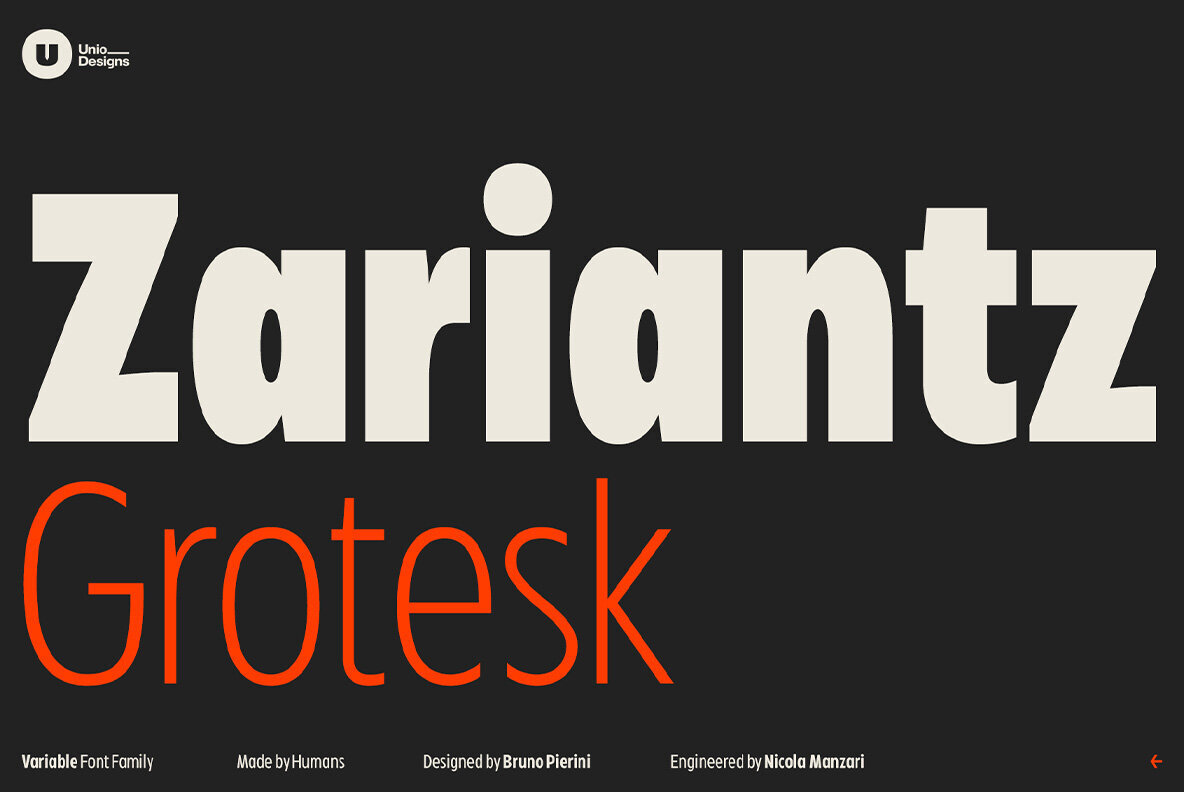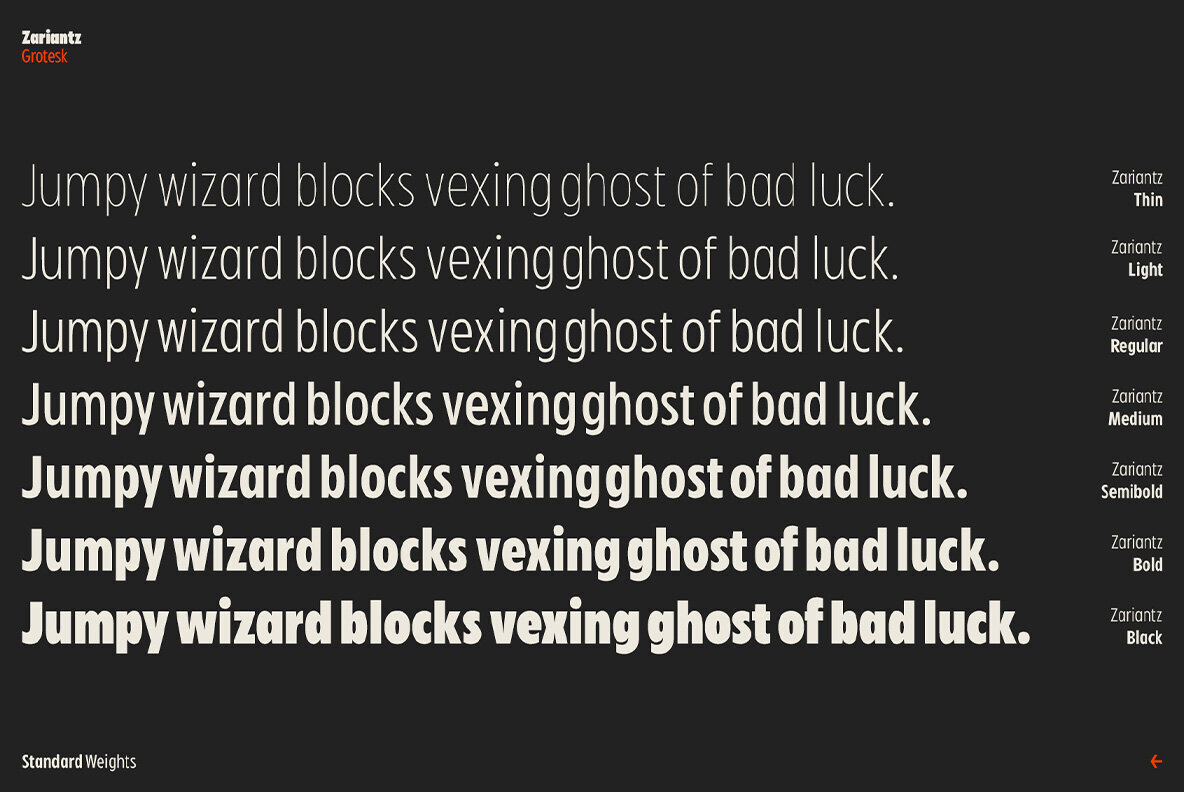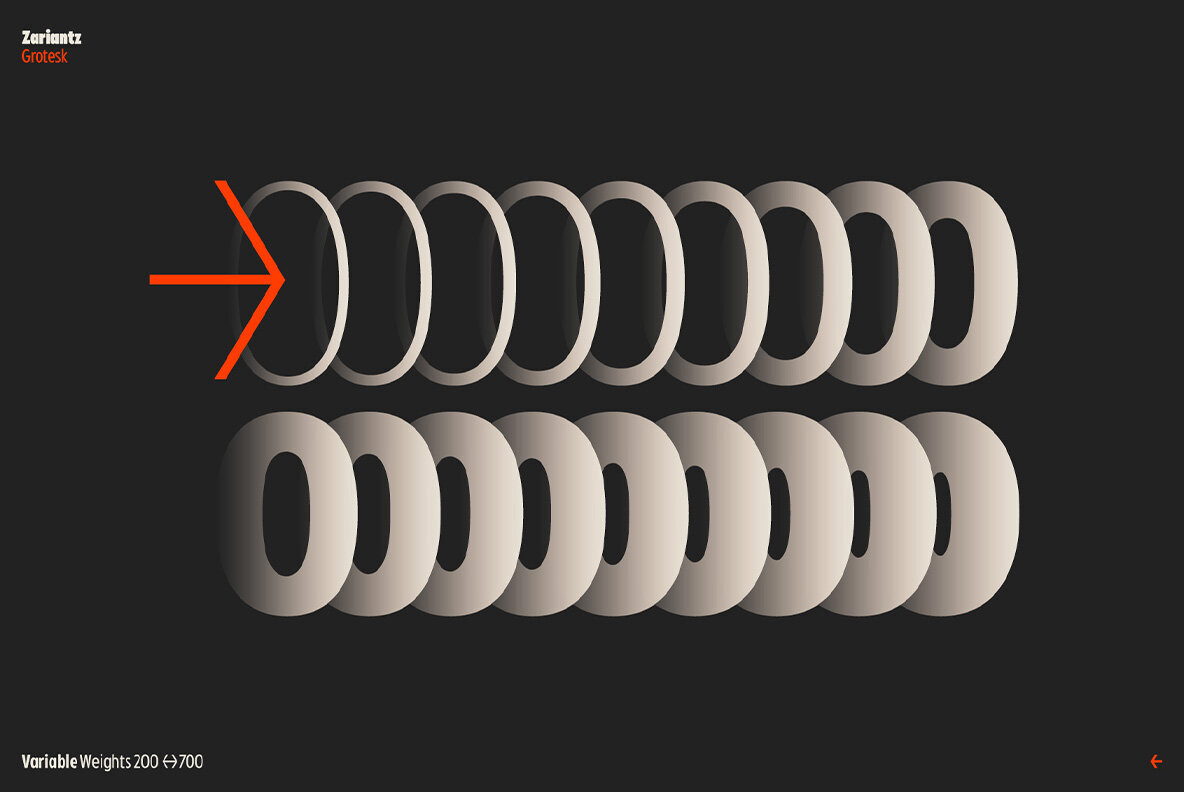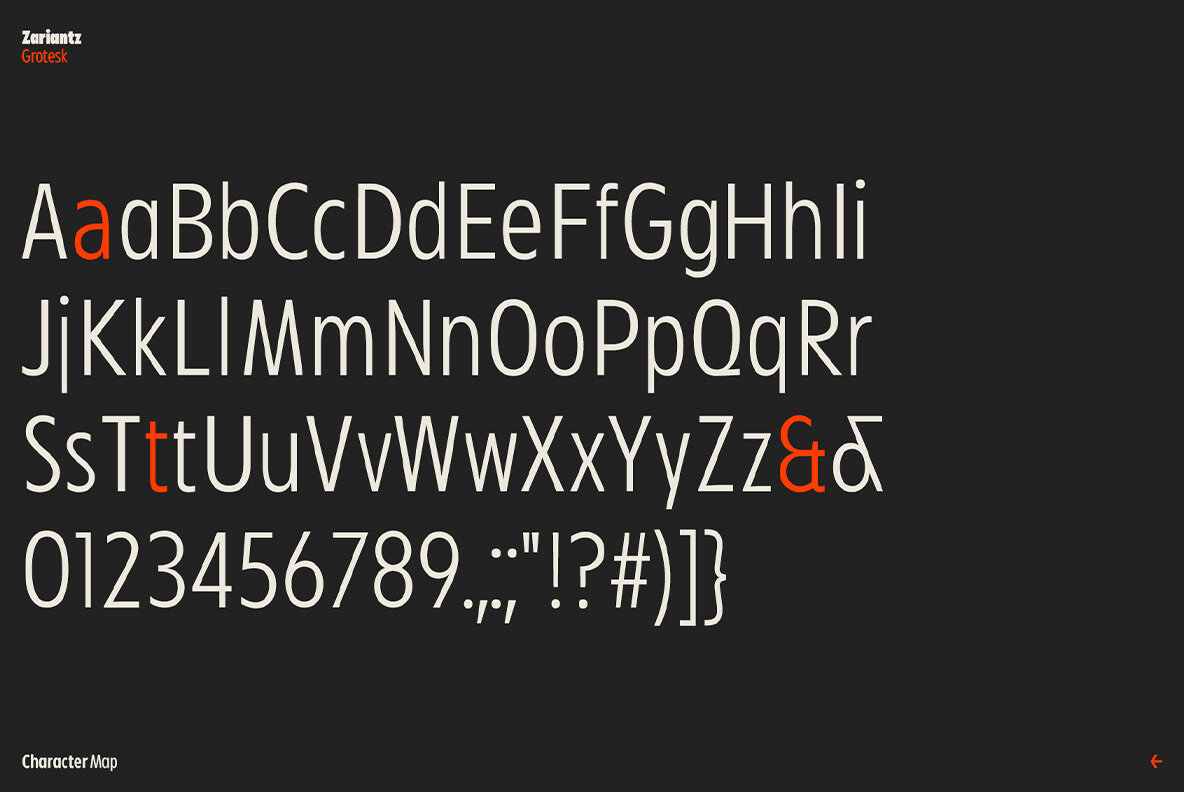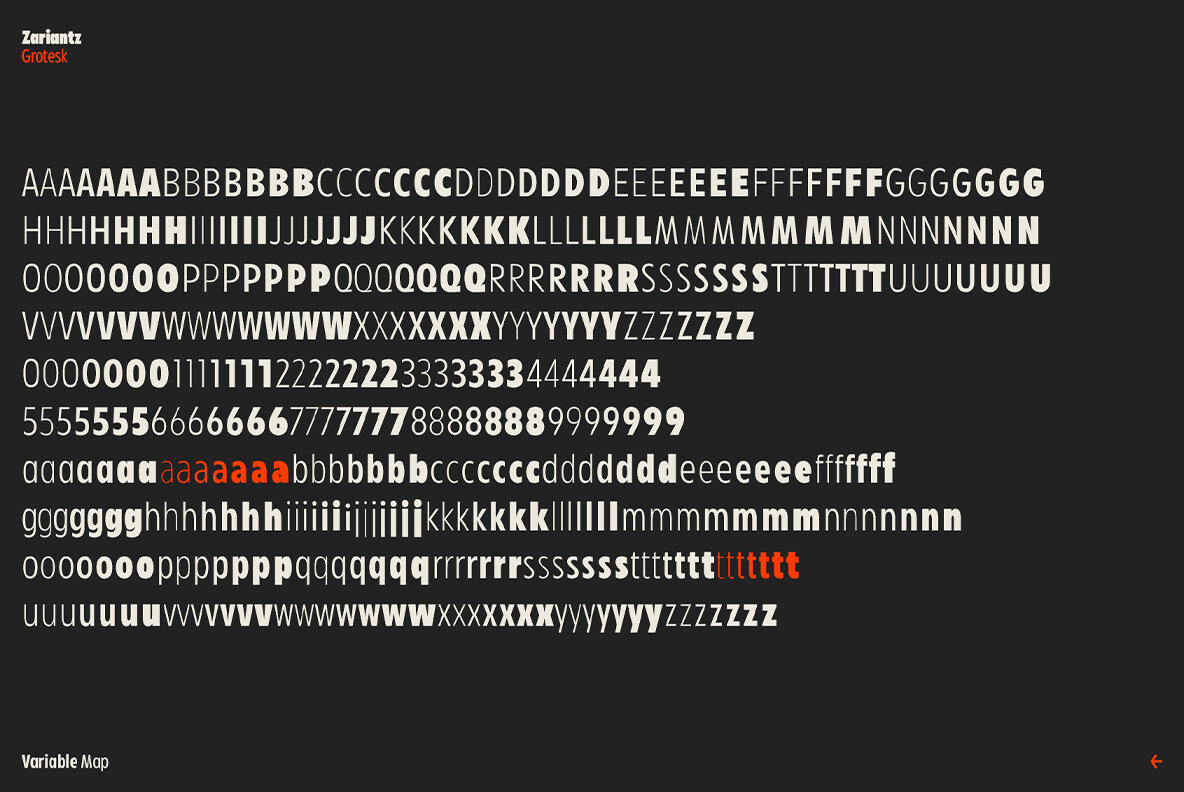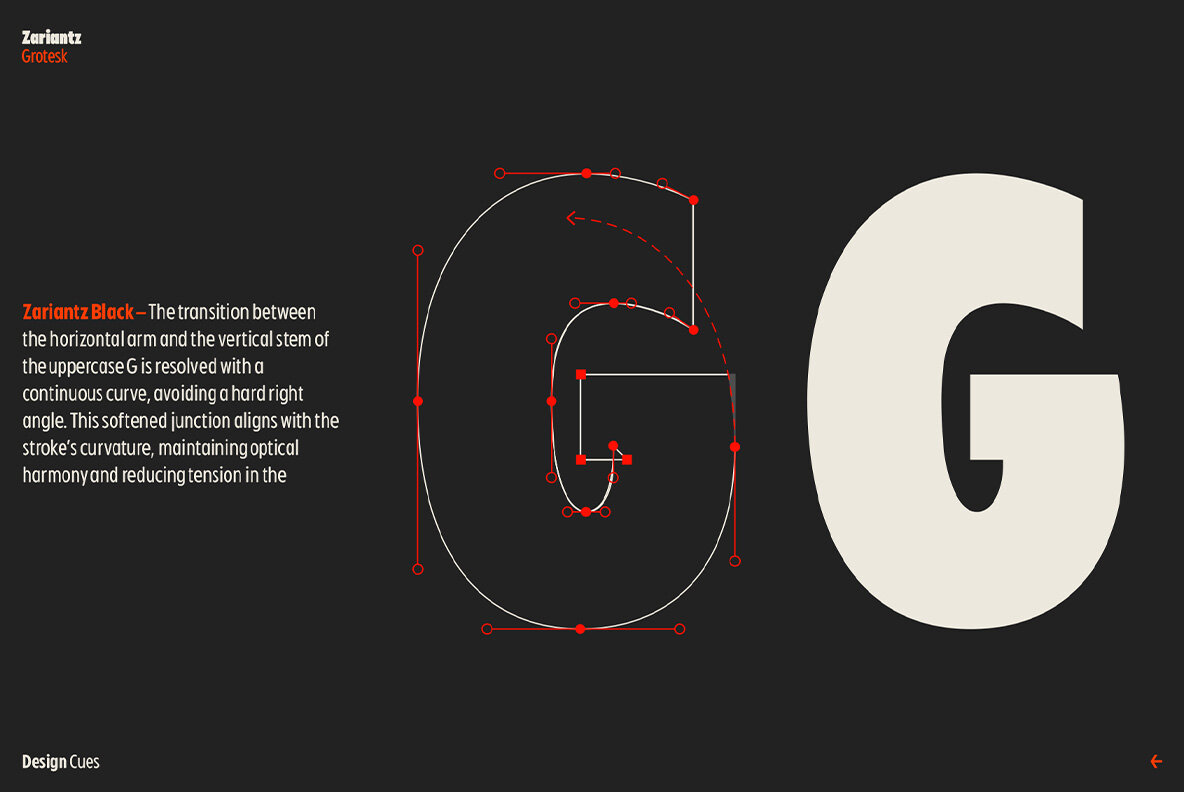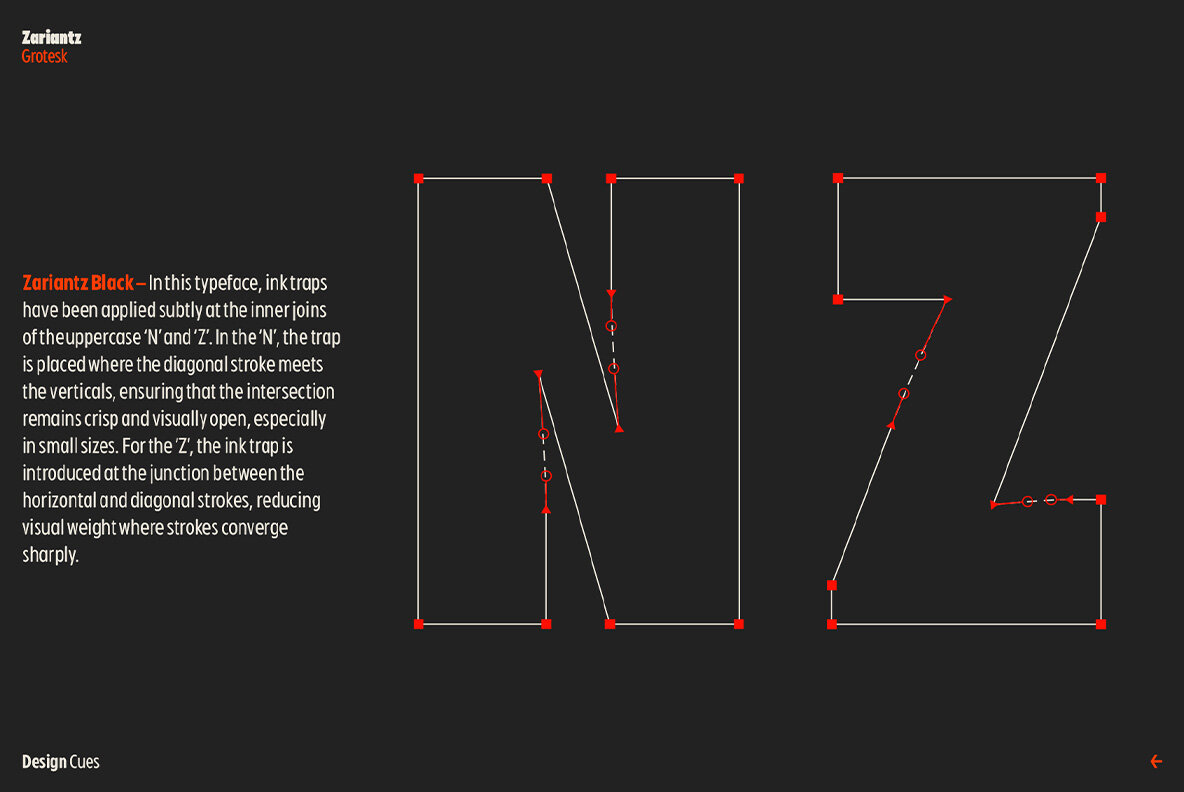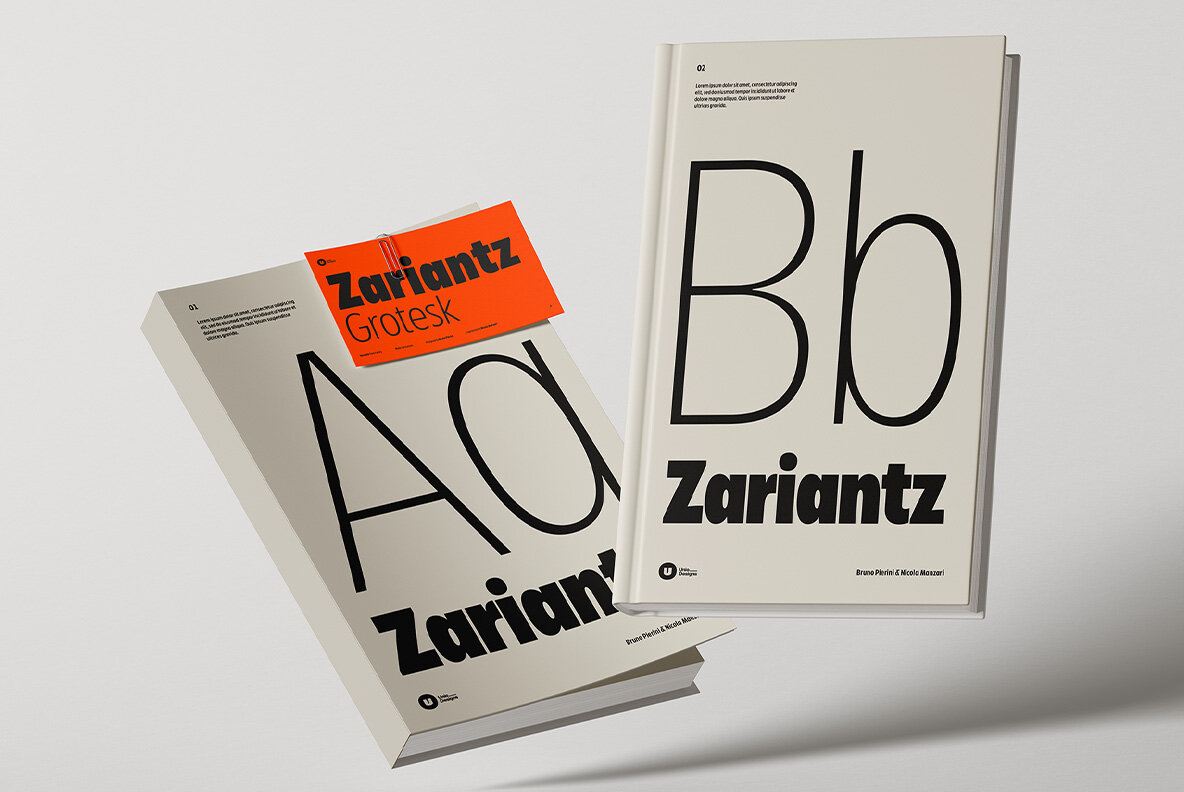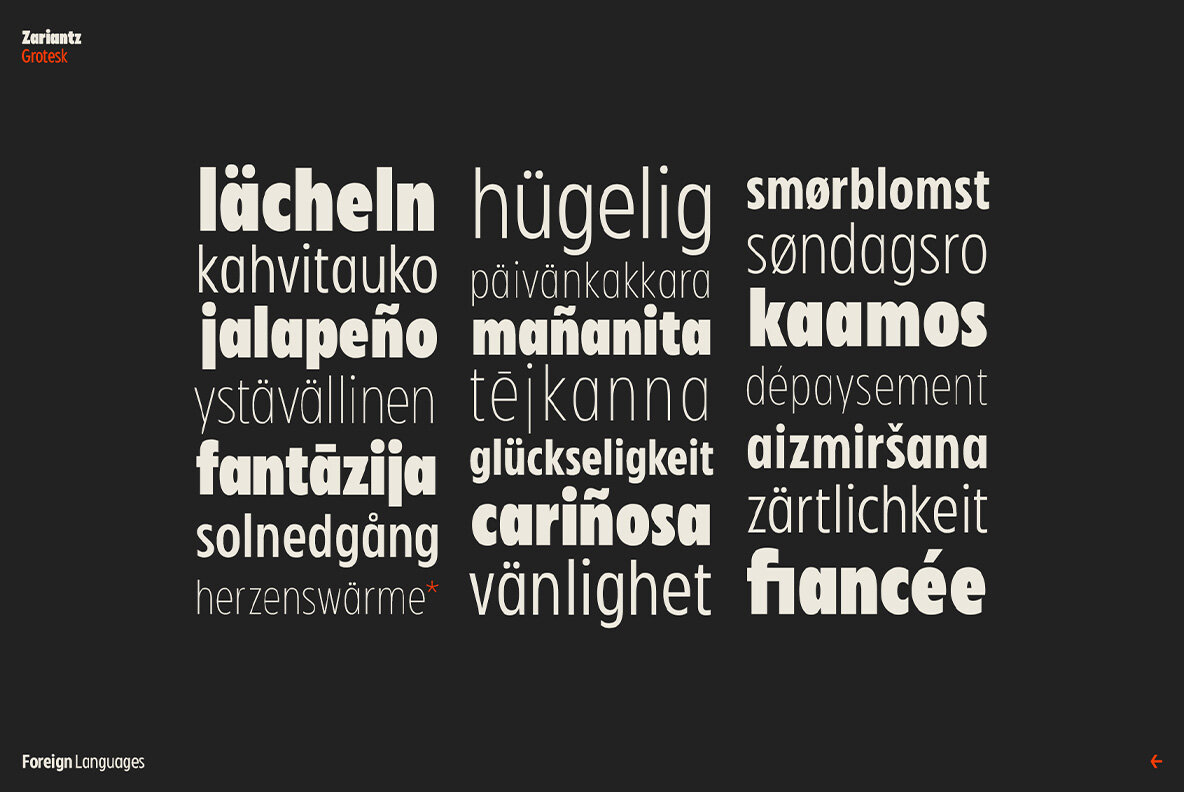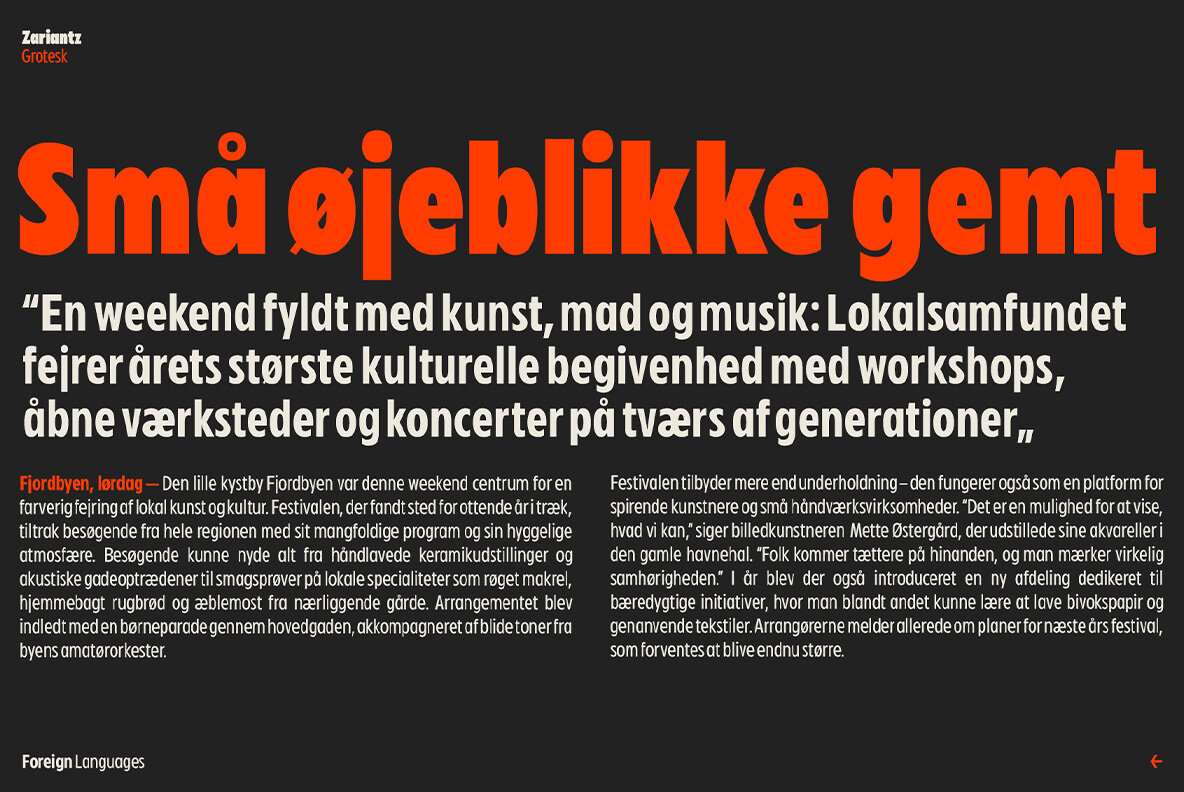
Zariantz Grotesk Variable Font
Inspired by a contemplative walk through Casamassima in Puglia, Zariantz Grotesk Variable pays homage to Hrand Zariantz, the celebrated Armenian-Italian literary figure. This sans serif typeface, with its narrow grotesque foundation, adeptly bridges handcrafted artistry with geometric precision. Zariantz Grotesk is noted for its ability to adapt seamlessly across various applications, from branding and editorial design to digital interfaces and grand displays. Crafted to be versatile, it offers a contemporary humanist tone that resonates through its dynamic rhythm and clarity, accommodating any modern typographic need. This typeface is designed to offer flexibility and functional elegance, making it an ideal choice for those seeking a modern yet timeless solution for their design endeavors.Zariantz Grotesk Variable: Modern Typeface Rooted in Tradition